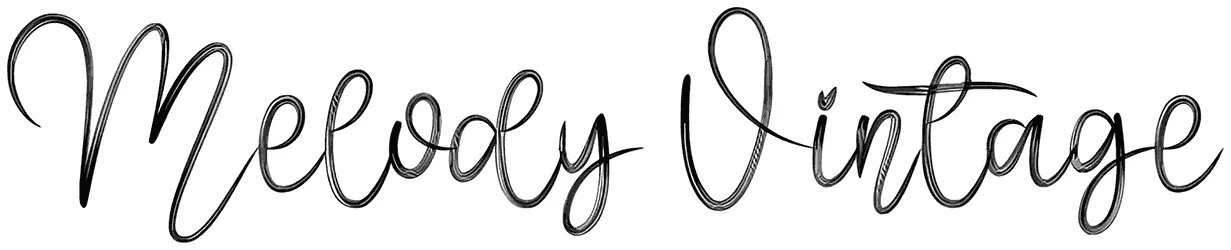
Melody Vintage Font
Have you ever had a modern design with a melodious and lovely vibe? Well, Melody Vintage will give you a chance to have it in your future project. This has a nice curvy letter style that would give your words an adorable face. With almost A-Z characters, this handwritten font can be a nice decoration for your designs, from wedding cards to apparel.
the latest style letters are perfect for wall displays, wedding invitations, social media post logos,
advertisements, product packaging, product designs, labels, photography, watermarks, invitations, stationery,
and any project that requires taste handwriting.